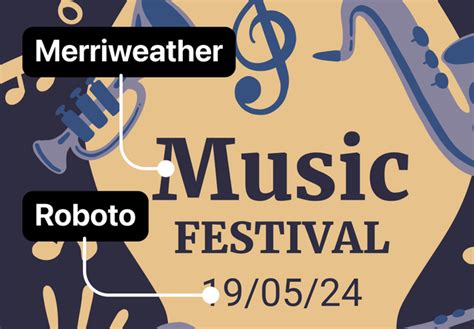
Iilondon News: Mastering Your Regular Font Choices
Hey guys, let’s talk about something super important for any digital publication, especially for a platform like iilondon News : your regular font choices . You might think, “It’s just text, who cares?” But trust me, the fonts you choose for your articles, headlines, and general website content play a colossal role in shaping your readers’ experience, influencing everything from their ability to comfortably consume your news to their overall perception of your brand. Getting your iilondon news regular font strategy right isn’t just about aesthetics; it’s a critical element of your user interface and, ultimately, your success. We’re talking about readability, brand consistency, accessibility, and even website performance. Think about it: a poorly chosen font can make your beautifully written articles a chore to read, leading to frustrated visitors who quickly bounce off your site. On the flip side, a thoughtfully selected typeface can make your content shine, inviting readers to delve deeper and spend more time on your platform. This isn’t just about picking something that “looks nice”; it’s about making data-driven decisions that enhance the user experience and reinforce your editorial integrity. We’re going to dive deep into why these choices matter, explore different font categories, and arm you with best practices to ensure your iilondon News platform not only looks great but also performs optimally for every single reader. So, buckle up, because by the end of this, you’ll be a font-choosing pro!
Why Font Choice Matters for iilondon News
When we talk about iilondon news font readability , we’re discussing the very foundation of effective communication on your platform. Imagine trying to read a critical news piece, packed with important information, but the text is blurry, too small, or simply difficult to distinguish. Frustrating, right? That’s why the right font choice is paramount for user experience. Your chosen font impacts everything from how quickly a reader can scan a headline to their sustained comprehension of a lengthy investigative report. A highly readable font reduces cognitive load, allowing readers to focus on the content itself rather than struggling to decipher individual characters. This directly translates to increased user engagement ; readers are more likely to stay longer, read more articles, and even return to your site if their reading experience is smooth and effortless. Beyond mere legibility, fonts also convey a significant amount of professionalism and set the tone for your entire publication. A serious news platform, for example, might opt for a classic, authoritative typeface, while a lifestyle section could lean towards something more modern and approachable. The specific attributes of your iilondon news regular font – its x-height, character width, stroke contrast, and overall aesthetic – subtly communicate your brand’s values and editorial stance. It’s a non-verbal cue that shapes how your audience perceives your credibility and journalistic integrity. Furthermore, a consistent font strategy across all sections of iilondon News builds a strong, recognizable brand identity , making your platform instantly identifiable and memorable. This visual consistency fosters trust and familiarity, essential ingredients for cultivating a loyal readership in today’s crowded digital landscape. It’s not just about looking good; it’s about strategically leveraging design elements to enhance functionality, build trust, and maintain a competitive edge.
Enhancing Readability and User Engagement
Let’s get down to the nitty-gritty of making your iilondon News articles a joy to read. The pursuit of iilondon news optimal font size isn’t a one-size-fits-all solution; it’s a delicate balance influenced by several factors, including the chosen typeface, target audience, and the device they’re using. Generally, for body text on desktop, anything between 16px and 18px is a great starting point, but on mobile, you might even consider bumping that up slightly to ensure comfort on smaller screens. However, it’s not just the size; line spacing , or leading, is equally crucial. Too tight, and your text becomes a dense, intimidating block; too loose, and the connection between lines is lost, making it harder for the eye to track. A good rule of thumb for line height is about 1.5 to 1.6 times the font size. This provides ample white space between lines, guiding the reader’s eye smoothly from one line to the next and significantly reducing eye strain, especially during long reading sessions. Think about your readers spending minutes, even hours, on iilondon News articles; optimal line spacing can be the difference between them finishing an article or abandoning it halfway. Another critical factor is contrast ratios . The difference in luminosity between your text color and background color needs to be substantial enough to ensure excellent legibility for everyone, including those with visual impairments. The Web Content Accessibility Guidelines (WCAG) recommend a minimum contrast ratio of 4.5:1 for normal text and 3:1 for large text. Ignoring these guidelines isn’t just bad design; it’s a barrier to a significant portion of your potential audience and can even lead to legal accessibility issues. Using tools to check your contrast ratios regularly is a smart move. Moreover, the actual design of the glyphs – the individual characters – in your chosen font plays a huge role. Fonts with clear, distinct characters, generous spacing between letters (tracking), and a moderate stroke weight tend to perform best for extended reading. Avoid overly stylized fonts for body text ; save those for impactful headlines if absolutely necessary. It’s all about making the reading experience as effortless and enjoyable as possible, guiding your readers seamlessly through your valuable content.
Building a Strong Brand Identity
Beyond just making your content readable, the selection of your iilondon news regular font is a powerful tool for crafting and reinforcing your iilondon news brand consistency . Your fonts are a visual signature, speaking volumes about who you are as a news organization without uttering a single word. Imagine the stark difference in perception between a newspaper using a traditional serif font versus one that opts for a quirky, handwritten style. Each choice immediately communicates a distinct personality and editorial stance. A consistent font palette across all your digital and even print assets—from your main articles to your social media graphics, email newsletters, and advertising—creates a cohesive and professional image. This consistency breeds familiarity and trust, two invaluable commodities in the competitive media landscape. Readers who encounter the same visual identity repeatedly begin to associate it with reliability and quality. We’re essentially delving into font psychology here; certain typefaces evoke specific feelings and associations. Serifs often connote tradition, authority, and trustworthiness, which can be ideal for serious news content. Sans-serifs, on the other hand, frequently project modernity, clarity, and approachability, suitable for more contemporary topics or digital-first experiences. The psychological impact extends to how readers perceive the credibility of the information presented. If your fonts appear haphazard or unprofessional, it can subtly undermine the perceived authority of your journalistic work. Therefore, a deliberate and well-executed font strategy contributes significantly to your overall visual identity , helping iilondon News stand out, resonate with its target audience, and cement its place as a trusted source of information. It’s about designing an experience that is not only functional but also emotionally resonant and unmistakably iilondon News .
Diving Deep into Regular Font Categories for iilondon News
Alright, guys, now that we understand why fonts are so critical, let’s explore the different types of iilondon news regular font options available to you and when each category truly shines. The world of typography is vast, but for most news publications, we primarily focus on a few key categories: serifs, sans-serifs, and to a lesser extent, monospace fonts for specific applications. Each category brings its own unique flavor, historical baggage, and practical benefits to the table, and understanding these nuances is essential for making informed choices that align with the goals and tone of iilondon News . When you’re selecting your main body text font, you’re looking for something that can perform consistently across a wide range of content, from breaking news alerts to in-depth analyses. The choice between a iilondon news serif fonts and iilondon news sans-serif fonts often boils down to a blend of tradition, modernity, and pure readability on digital screens. Serif fonts, characterized by the small decorative strokes (or